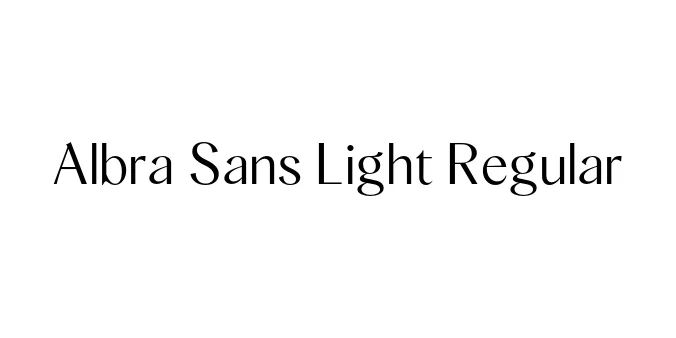
Albra Sans Light Regular
Designed by BumBumType (Tom Anders Watkins & Ellen Luff)
Albra Sans Light Regular is a sophisticated addition to the larger Albra type family, crafted to provide a harmonious balance between classical proportions and contemporary geometric clarity. As part of the Albra collection, this typeface was developed to bridge the gap between high-contrast serifs and clean, functional sans-serifs, resulting in a versatile tool for modern designers. The Light weight specifically emphasizes an airy, delicate aesthetic that retains exceptional legibility even at smaller scales.
The structural integrity of this font is defined by its high x-height and open apertures, which facilitate a smooth reading experience across various media. Its design language is rooted in 20th-century minimalism but updated with modern refinements that make it suitable for high-end digital and print environments. Whether used for understated body text or elegant display headers, Albra Sans Light Regular brings a sense of refined luxury and professional polish to any project.
Albra Sans Light Regular Best Uses
Perfect for sophisticated magazine layouts and body text that requires a light, airy touch.
Excellent for high-end luxury brands looking for a clean, minimalist identity.
Great for modern UI/UX design, particularly for subheaders and clean interfaces.